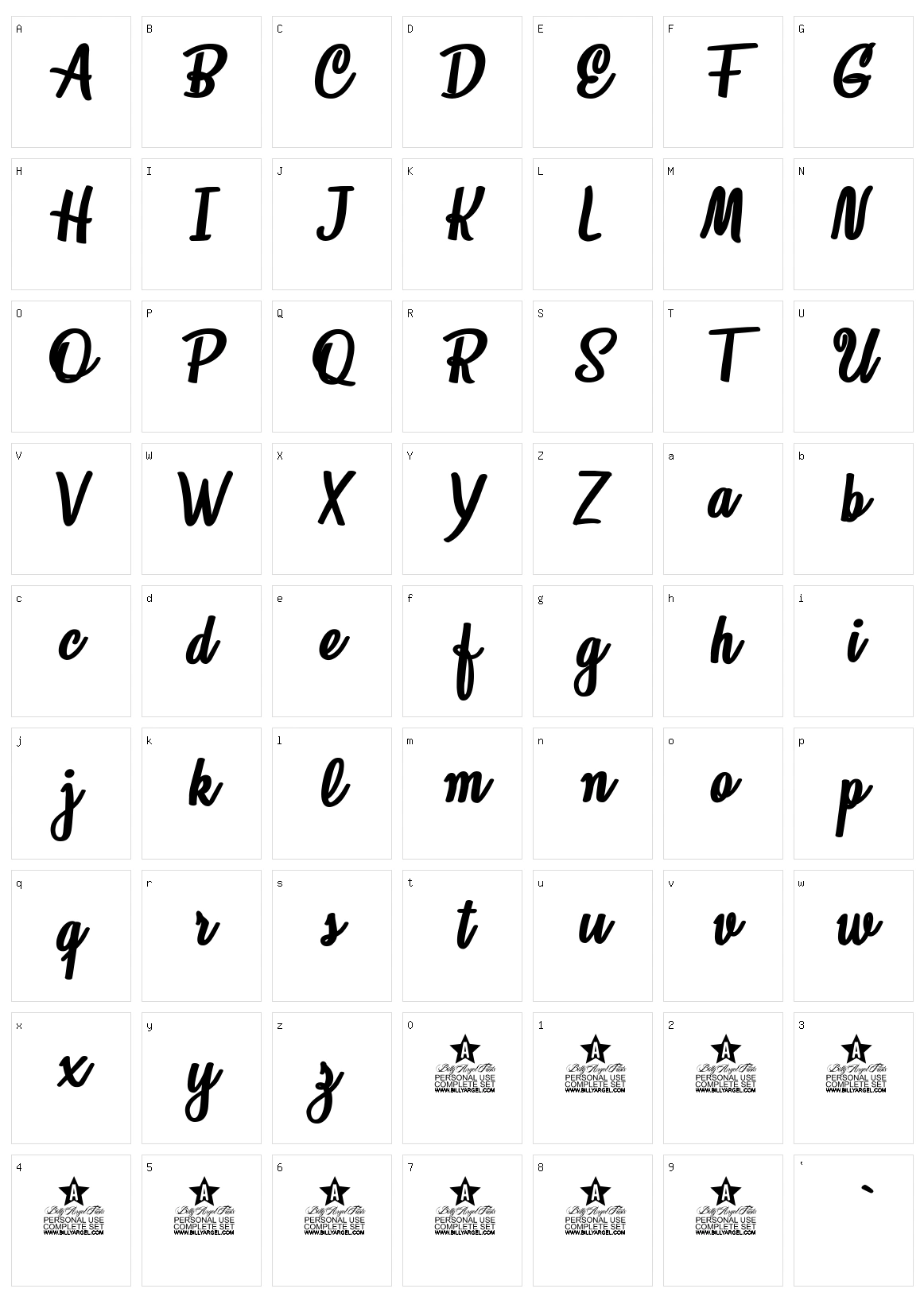
The free font Loveland is carefully designed by Billy Argel Fonts ?, showcasing a thoughtful balance of creativity and usability and falls under the Script font style. When you download the ZIP file, it contains only 166.52 KB of font files, making it lightweight and quick to download. Please review the license details below to understand permitted usage and distribution rights. If license information is not available, we recommend using this font for personal projects only or contacting the author directly for commercial usage permissions.